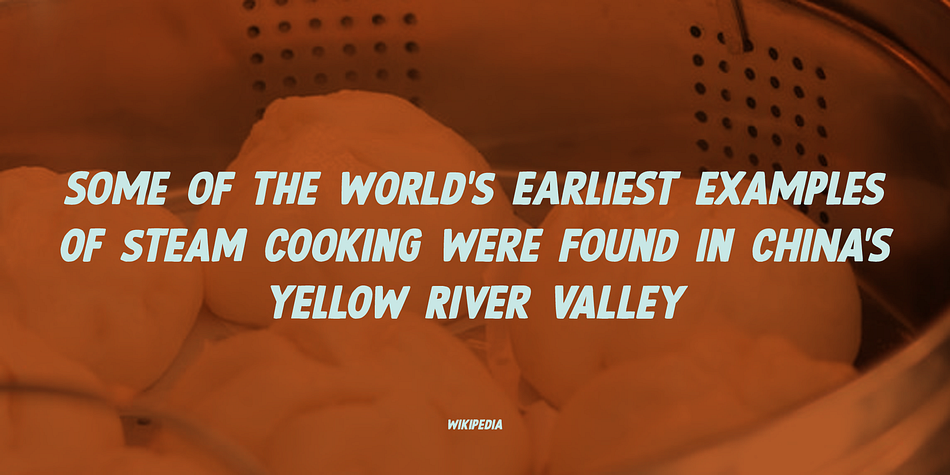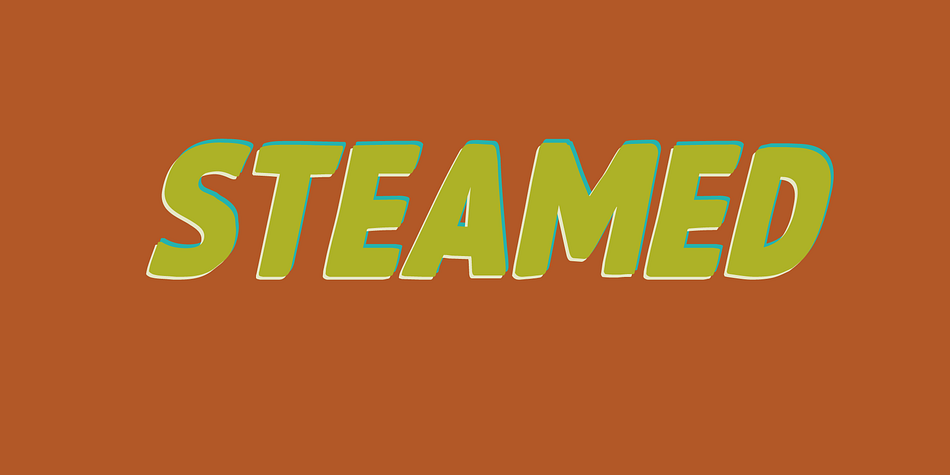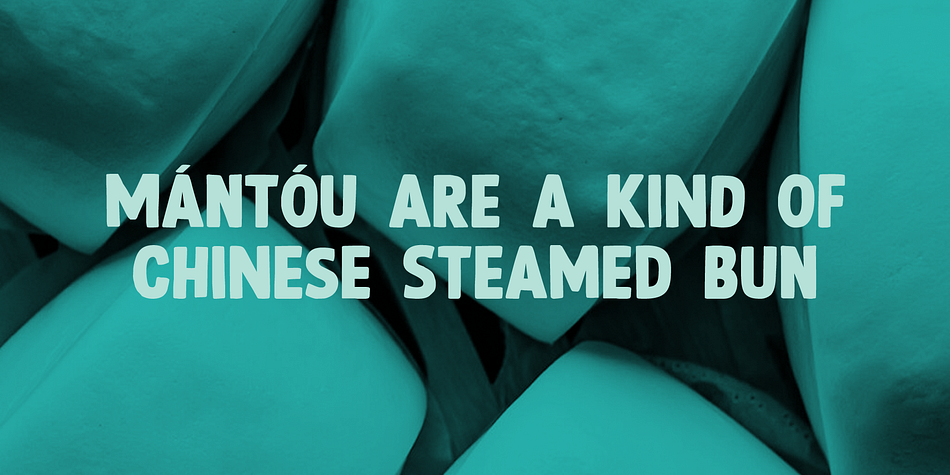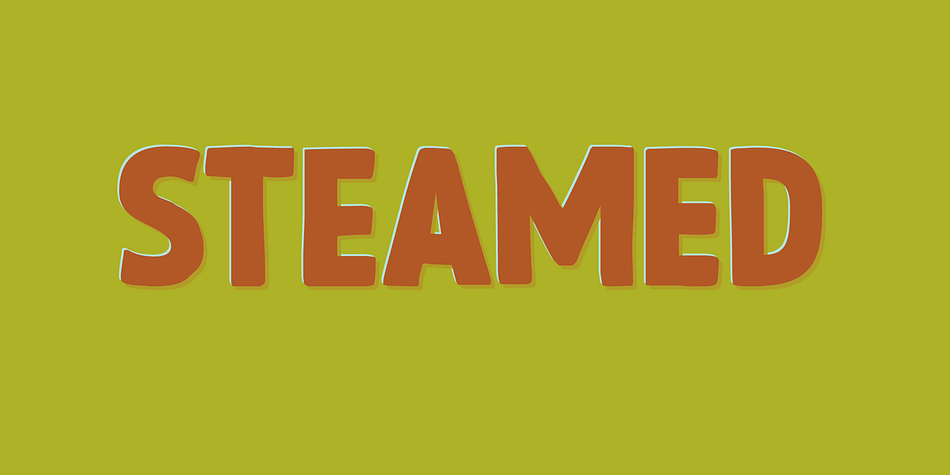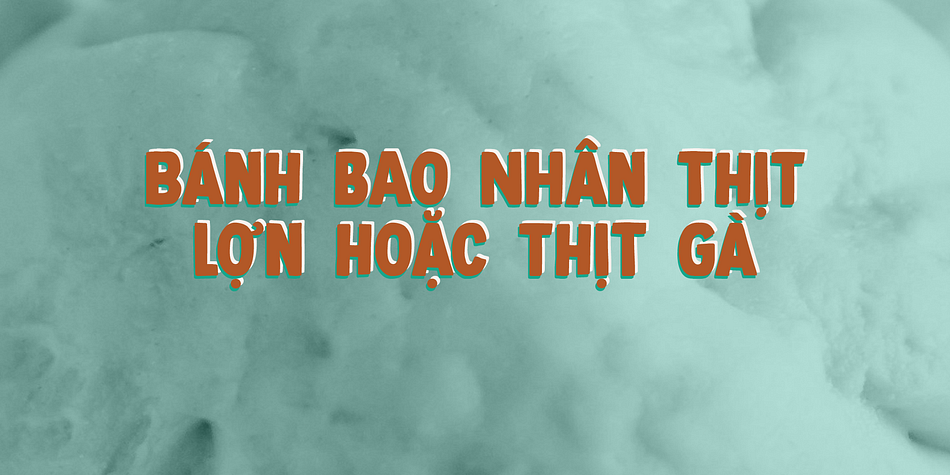
Steamed
Designed by David Kerkhoff, Steamed is a hand display font family. This typeface has two styles and was published by Hanoded.
I have upgraded my existing font software and also bought new font software to play around with. It takes some time getting used to working with it; the upgraded software feels similar to what I am used to, but handles things differently and the new software is intuitive, but comes with its own language and ways of doing things.
I spend most days reading the handbooks and watching online tutorials, but I did manage to create a font.
Steamed is a hand drawn all caps display font that comes with a whole bunch of accented glyphs (even Vietnamese) to play around with.